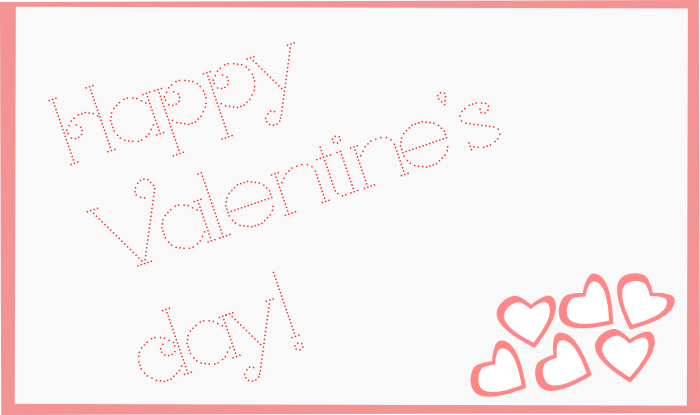
Peranbu
'Peranbu' means immense love.
My only entry for the Love comp made hastily at the last day. Mish mash of styles. Comments/suggestions are welcome. :)
A charming light and playful design; it could even be used for embroidery work. Maybe the shoulders of the 8 by the junction could be more rounded (like the top arc of the s)?
Try the "Nudge-tool" to clean out the last irregularities in your curves...